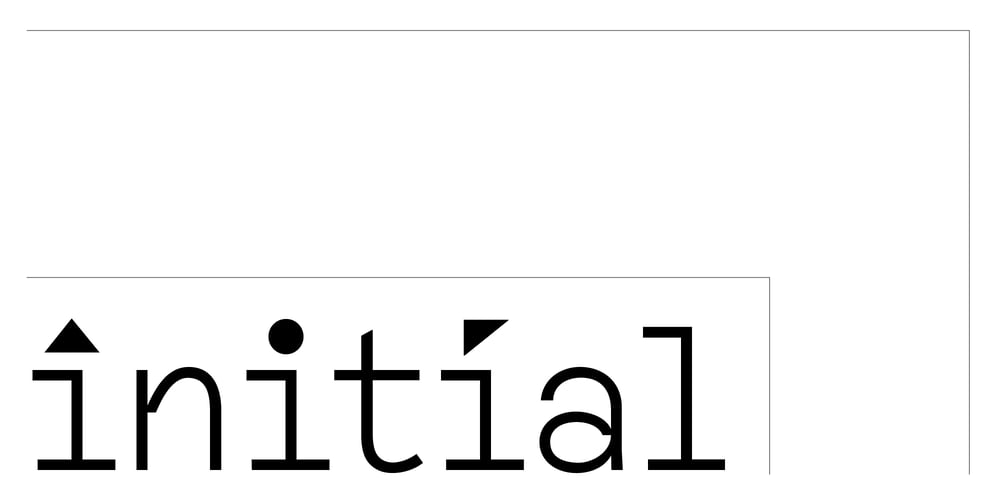
Flefixx Font Family was designed by Sun Young Oh and published by Sun Young Oh. Flefixx contains 1 styles and family package options. Flefixx is a typeface constructed from fragmentary elements, each playing a distinct role as if they are individual pieces. The intentional exposure of the intersections of these fragments emphasizes the typeface’s creation through interconnected elements. Furthermore, diacritics and dots are strategically positioned as ornaments, enhancing their presence within the gaps between letters.This concept aligns with the theme of composition and connectivity among fragments, allowing strong rhythmic patterns to emerge as letters and symbols blend in a paragraph. Additionally, the prominent and bold punctuation marks serve to provide pauses and clarity within sentences that incorporate both letters and the visual language.